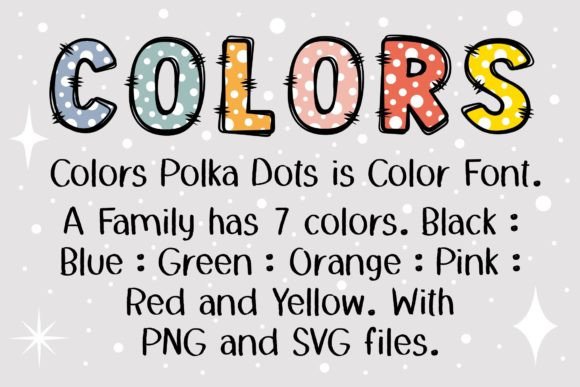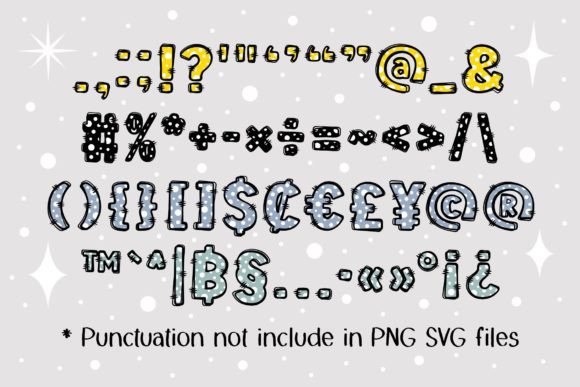
Colors Polka Dots Font
Colors Polka Dots is a cute colorful font. This font is the perfect fit for all of your t-shirts, social media, crafty DIY projects, and much more!